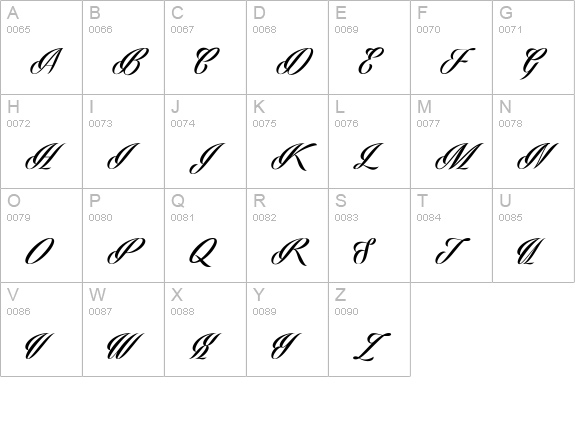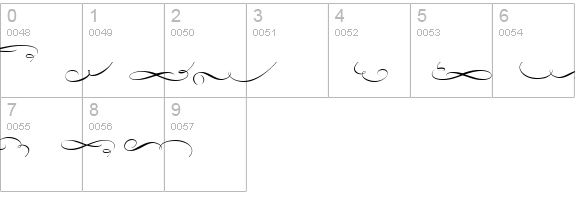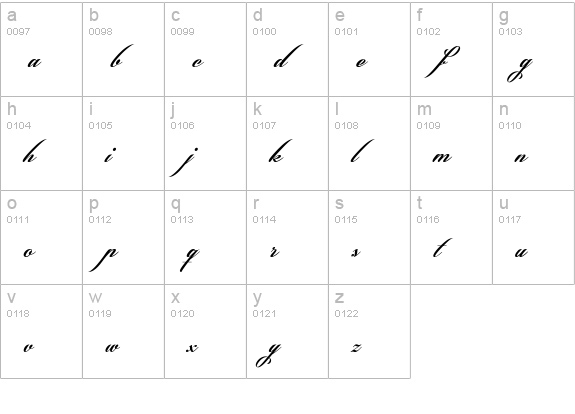
Phraell Font Details
Phraell font is a stunning display font that effortlessly blends elegance and modernity. With its unique and stylish letterforms, this typeface exudes a sense of sophistication, making it perfect for a wide range of design projects. The beauty of Phraell font lies in its versatility. Whether you are working on a logo, branding materials, or a creative headline, this font will add a touch of class and professionalism to your work. Its clean lines and balanced proportions make it easy to read and visually pleasing. But what sets Phraell font apart from other fonts is that it is not only visually captivating, but it is also free. Yes, you read that right! This incredible font is freely available to download at FontsMarket.com. You can now enhance your designs without breaking the bank. By choosing Phraell font, you are not only getting a high-quality typeface, but you are also making a smart and budget-friendly decision. Whether you are a professional designer or just starting out, this font will elevate your designs to the next level. So why wait? Download Phraell font today and unlock a world of design possibilities. Let your creativity soar with this beautiful and free font. With Phraell font, you can create eye-catching designs that leave a lasting impression.